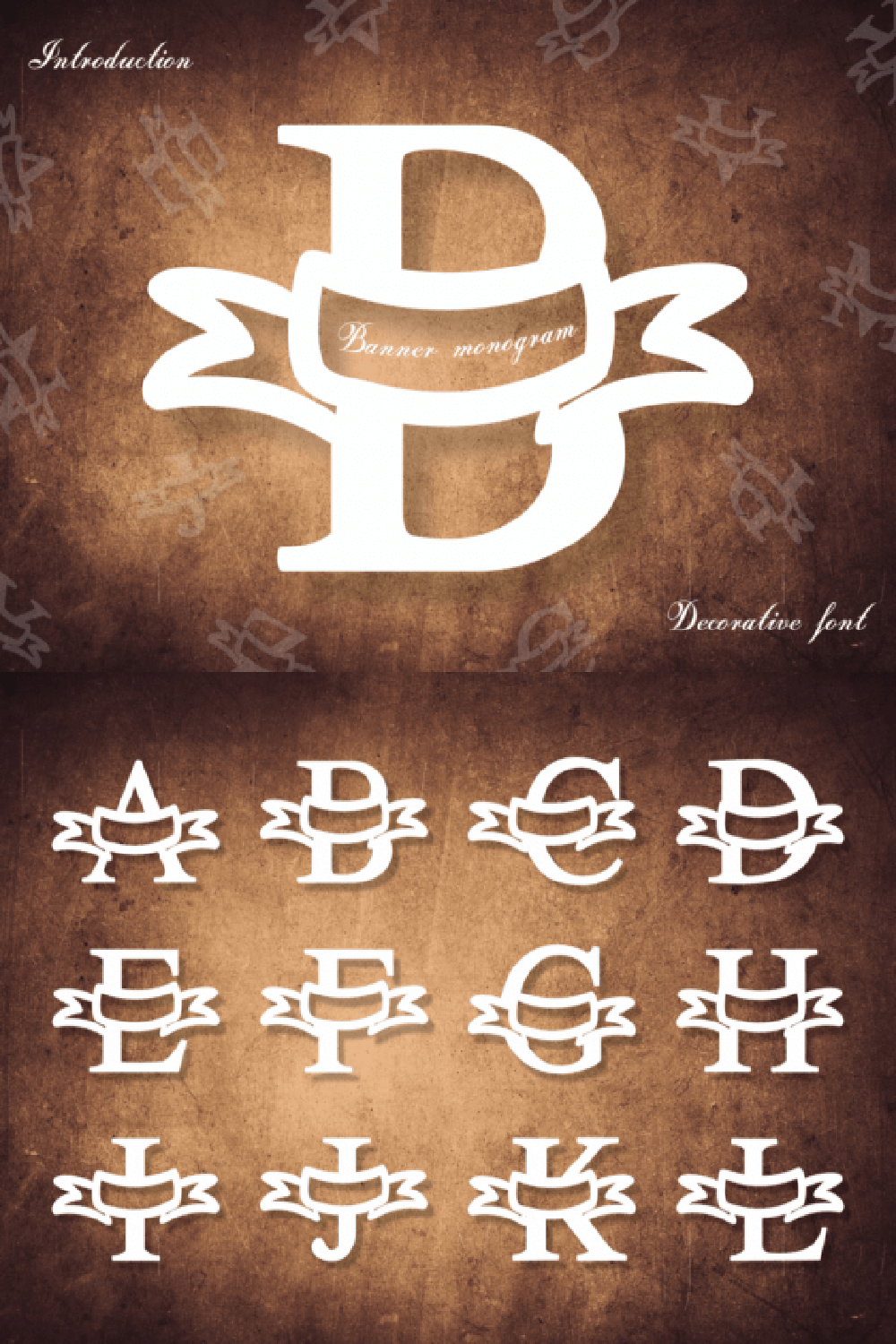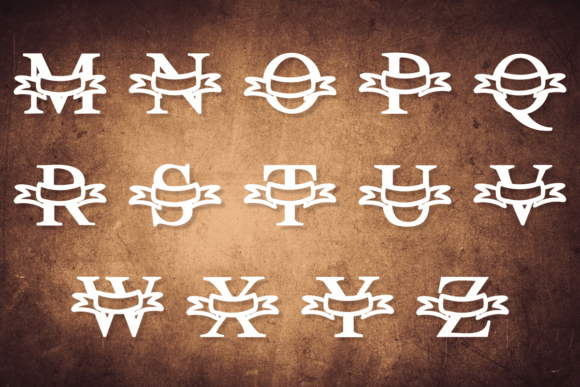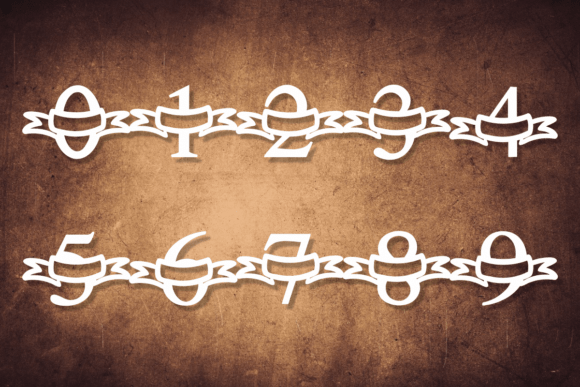
Banner Monogram Font
About the Banner Monogram Font
Elevate your designs with Banner Monogram Font, a font that combines sophistication with readability. Banner Monogram is a decorative font. You can use it for taking notes, writing a diary or making greeting cards. However you can still use it for other designs such as banners content mugs cards shirts stationery social media posts and more!